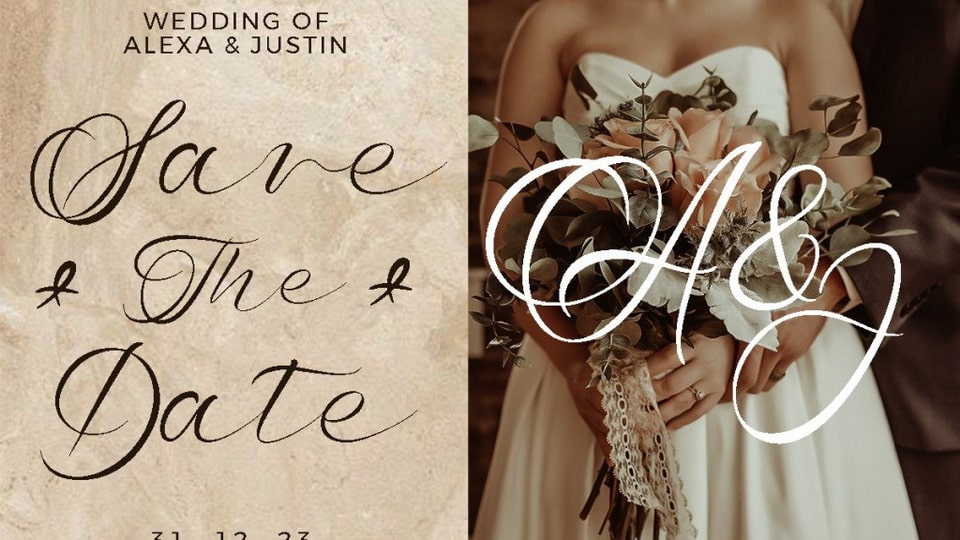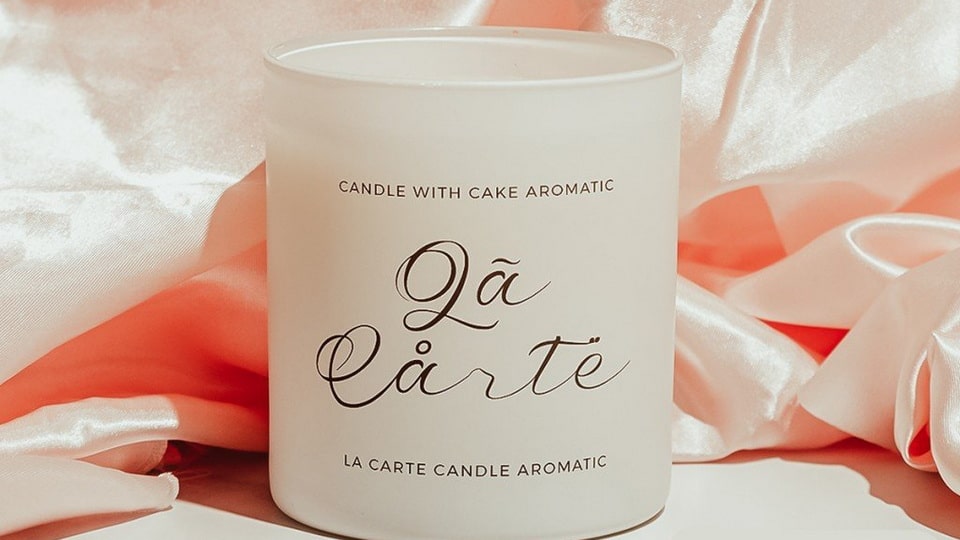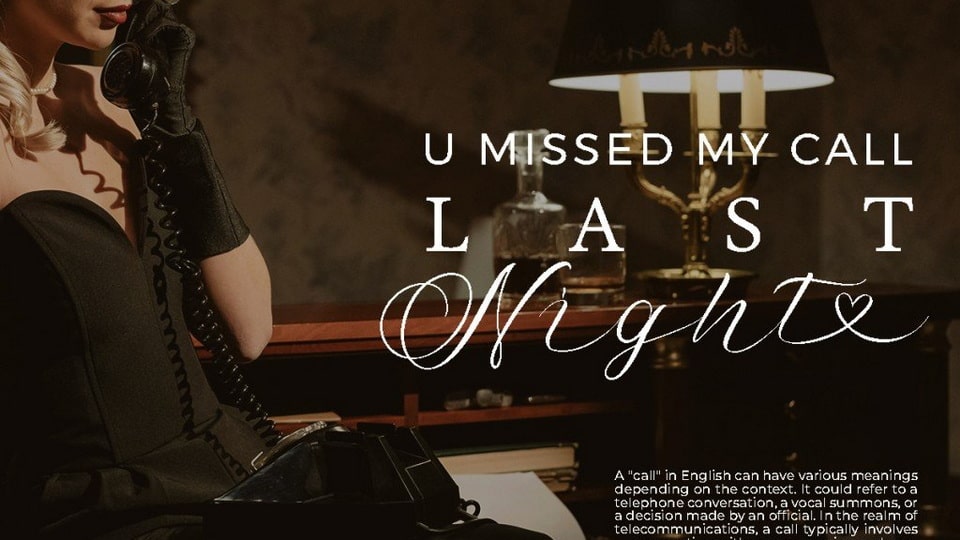
Lily Adam is a beautiful modern calligraphy font that particularly well suited for wedding invitations, save the date cards and feminine branding.
Lily Adam font contains ligatures and the stylistic alternates for lowercase characters to perfectly re-create natural calligraphy.